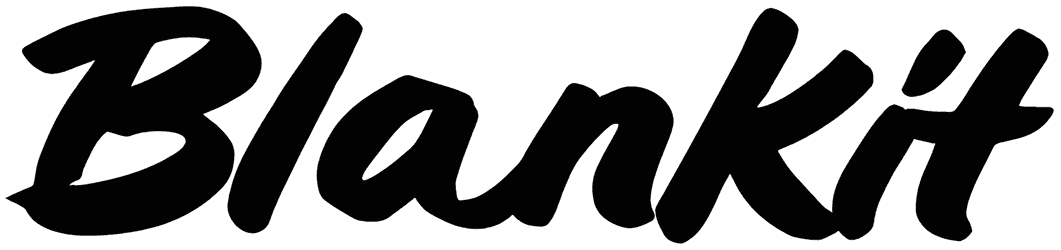
Blankit Font
Blankit with a bold and urban mood is a unique choice for a lot of subjects. This brush font has a modern and hand-drawn face and consists of almost full characters. You can try this fat marker font for varied designs, for instance, website graphics, product logos, posters, ads, or the like, and create a distinct project.